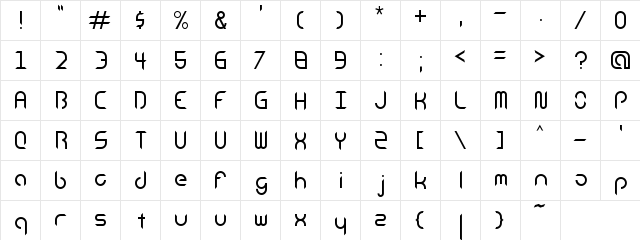
Android Insomnia Regular
Design Context for Android Insomnia Typeface
Android Insomnia takes a measured approach to typography — its balanced proportions and neutral character make it a reliable workhorse for both digital and print work.
Pro Tip: Use Android Insomnia in both headline and body roles to test its range before committing to a single application.